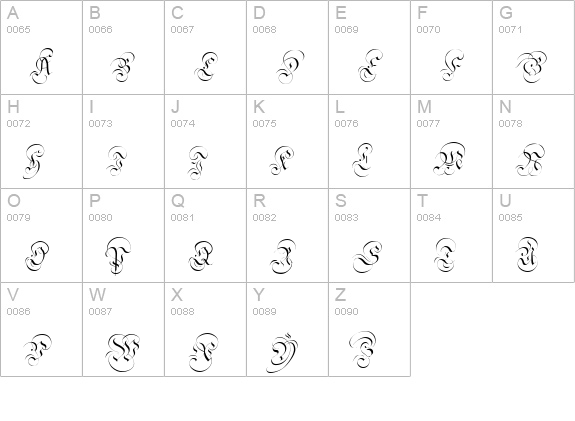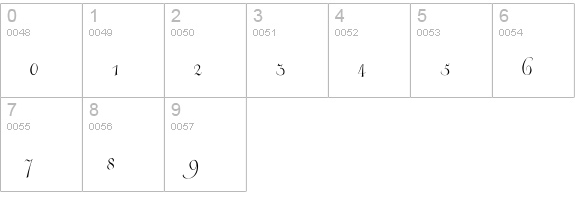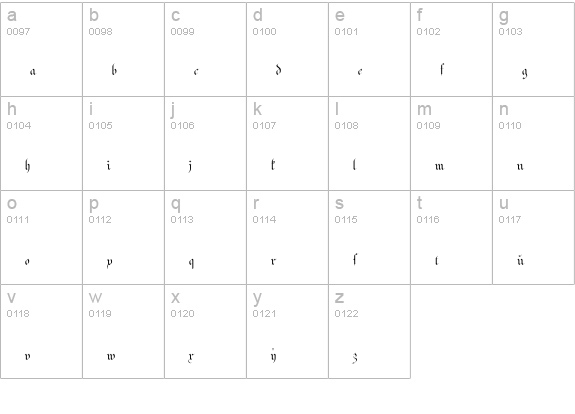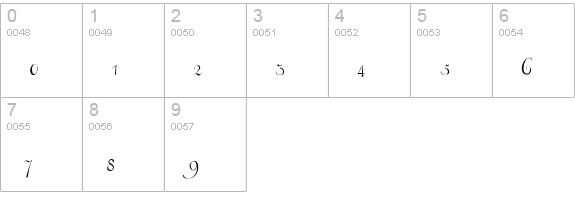
Strassburg Fraktur Font Details
The Strassburg Fraktur font is a stunning display typeface that effortlessly combines elegance and historical charm. With its intricate letterforms and bold strokes, this font is the perfect choice for adding a touch of sophistication to any design project. Derived from the traditional blackletter style, Strassburg Fraktur showcases a unique blend of Gothic and calligraphic influences. Each letter exudes a sense of timeless beauty, capturing the essence of classic typography. What sets Strassburg Fraktur apart is its versatility. Whether used for branding, packaging, invitations, or editorial design, this font adapts flawlessly to various contexts, making it suitable for both headlines and body text. But what truly makes Strassburg Fraktur even more remarkable is that it is free! That's right - this exceptional font is freely available to download at FontsMarket.com. Designed with accessibility in mind, Strassburg Fraktur allows designers of all levels to access and utilize its unique features without any restrictions. So, if you're looking to add a touch of old-world charm to your designs, Strassburg Fraktur is the perfect choice. Download the font today from FontsMarket.com and unlock a world of endless design possibilities.